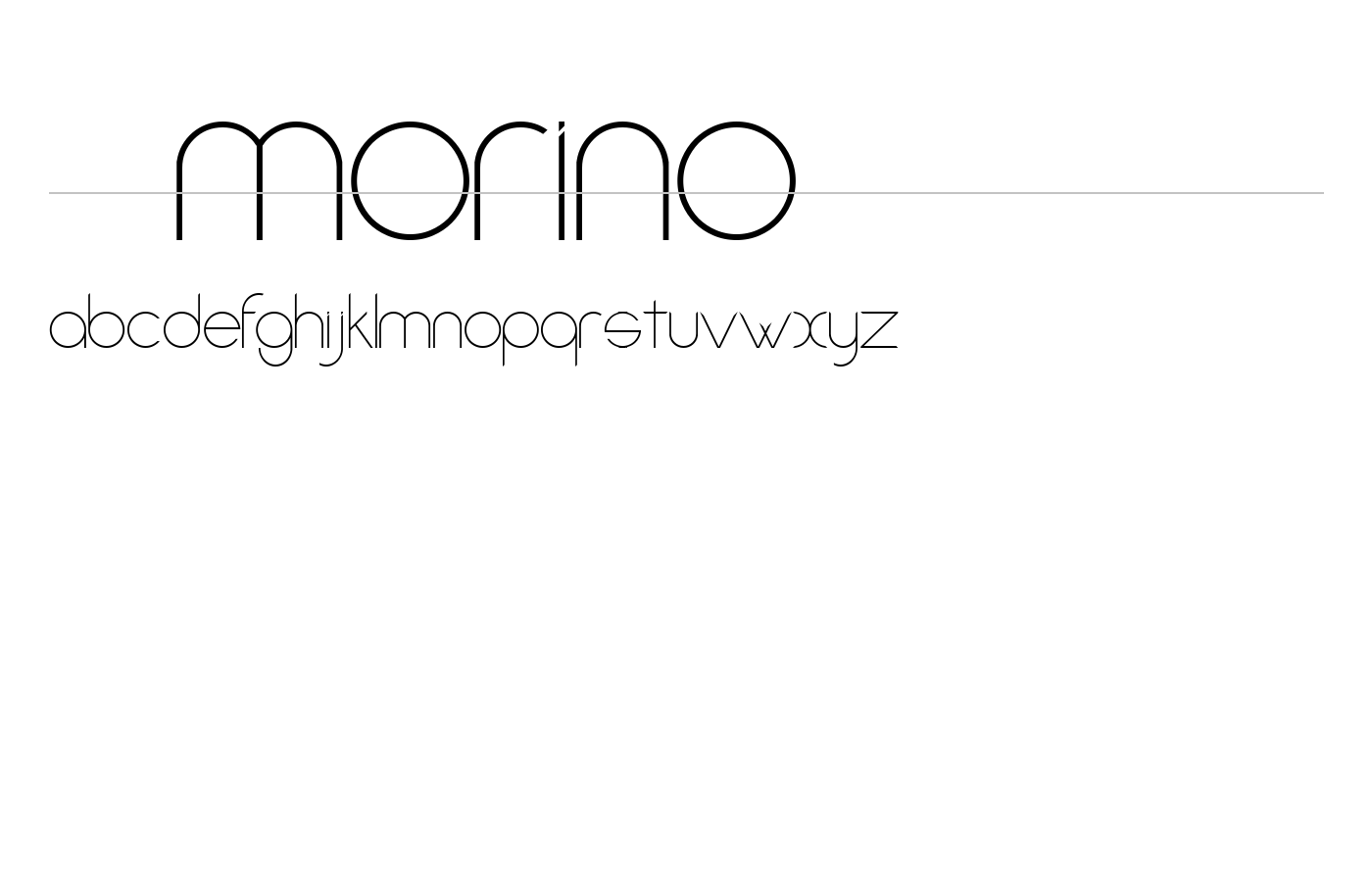
Amorino is a delicate, ultra-light sans serif font with an elegant, modern style characterized by its thin, geometric letterforms and high x-height. Its fine lines and open shapes give it a refined, airy feel that works beautifully in minimalist designs, luxury branding, and sophisticated editorial layouts. This font is ideal for headlines, logos, and creative projects seeking a sleek, contemporary look with a touch of subtle elegance.
Amorino Font
About Amorino Font